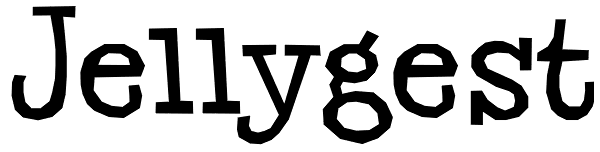
Jellygest
Jellygesh was initially drawn by hand, then digitized using straight lines only - making the letters look like they were carved out. Although the roughness, Jellygesh can be found useful for several cases... that being serious matters or more casual...
Jellygest
Jellygest Fat